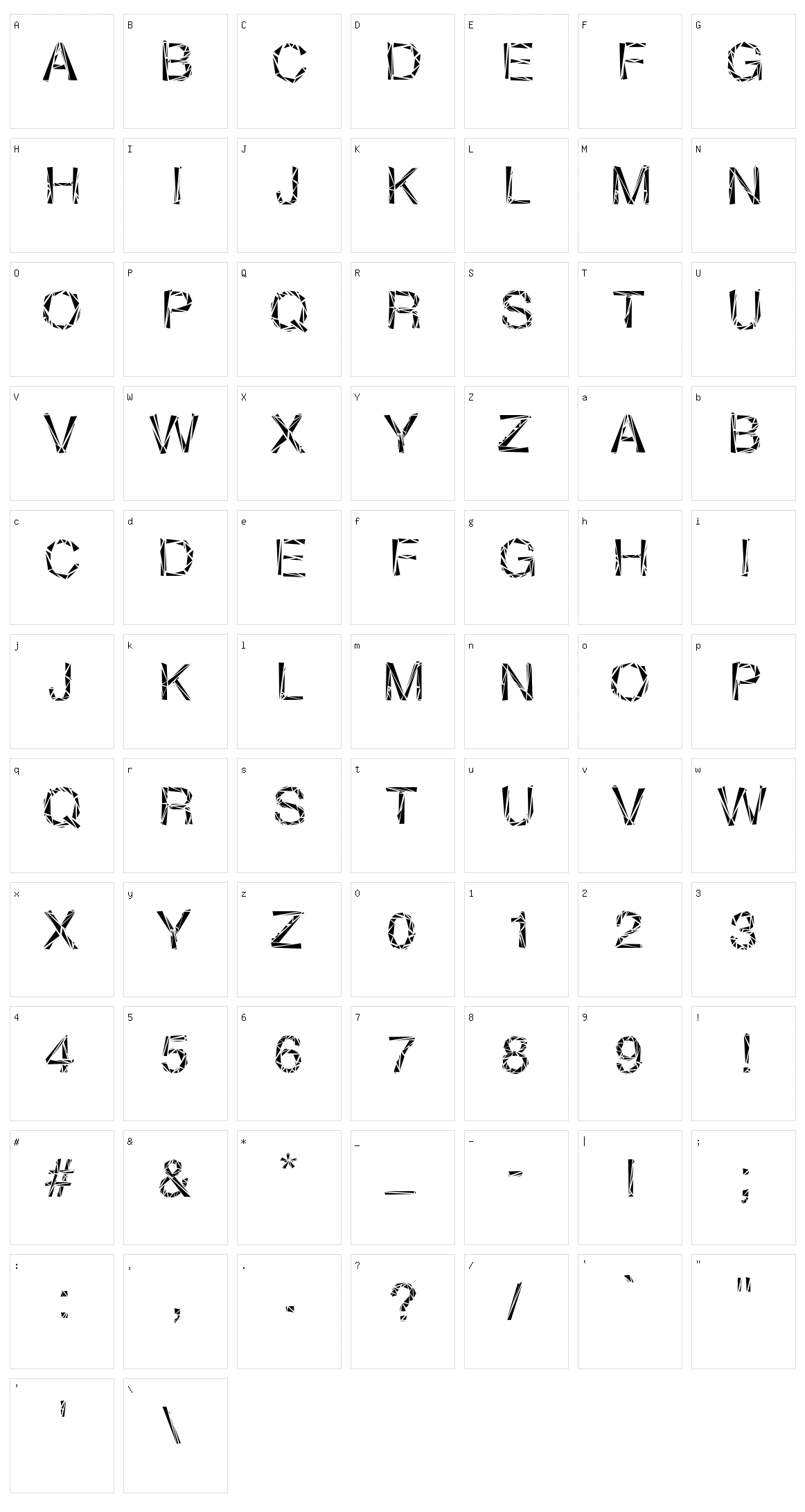
The free font Four Sixteen is carefully designed by APG Studios, showcasing a thoughtful balance of creativity and usability and falls under the Distorted font style. When you download the ZIP file, it contains only 15.77 KB of font files, making it lightweight and quick to download. Please review the license details below to understand permitted usage and distribution rights. If license information is not available, we recommend using this font for personal projects only or contacting the author directly for commercial usage permissions.